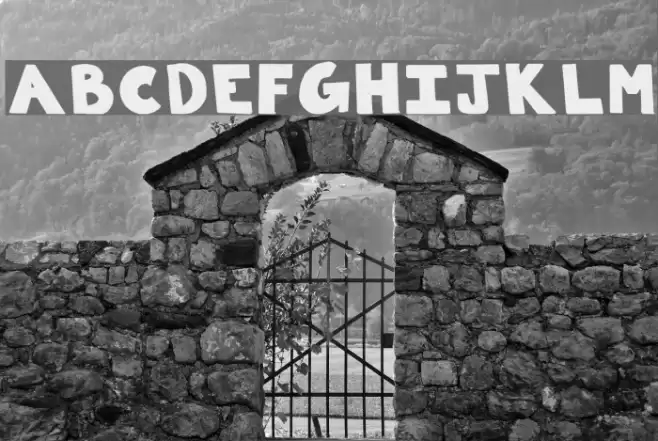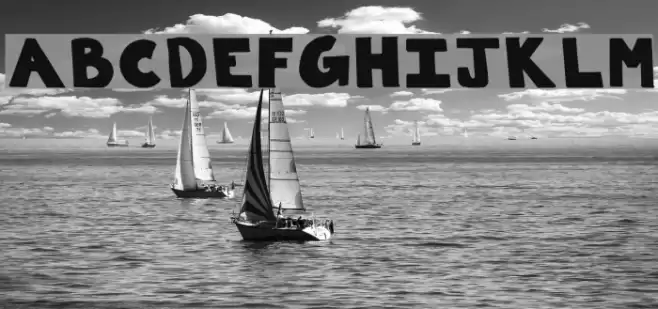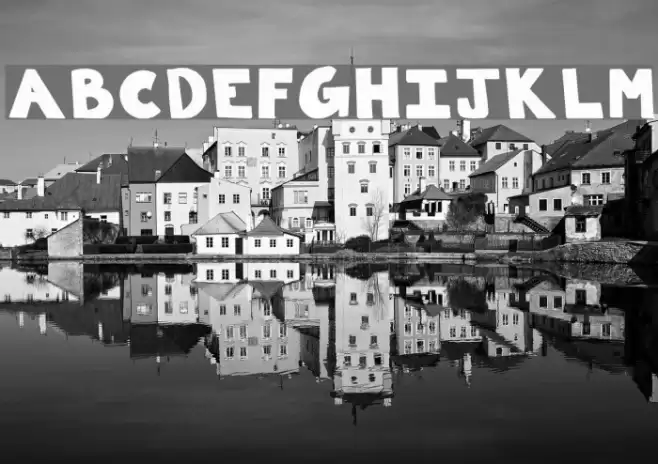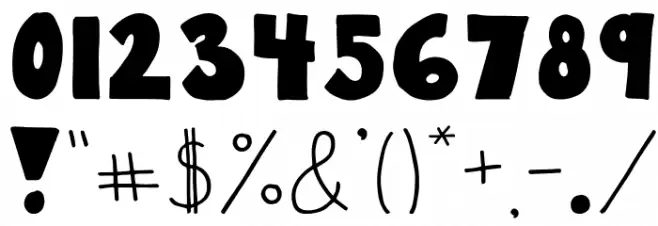
Poppies Font
Poppies Description
This playful and bold font features a unique blend of thick, rounded uppercase letters and thin, whimsical lowercase letters. The uppercase characters are solid and substantial, giving a strong visual impact, while the lowercase letters are more delicate and hand-drawn, adding a touch of casual charm. The numbers are bold and consistent with the uppercase style, ensuring readability and emphasis. Special characters maintain the playful aesthetic, with a mix of bold and thin strokes that complement the overall design. This font is ideal for projects that require a fun and approachable look.
A playful, bold font with rounded uppercase and whimsical lowercase letters from Uncategorized fonts.
- Proposed Projects: Ideal for children's books, playful branding, posters, and greeting cards.
- Overall Style: Playful